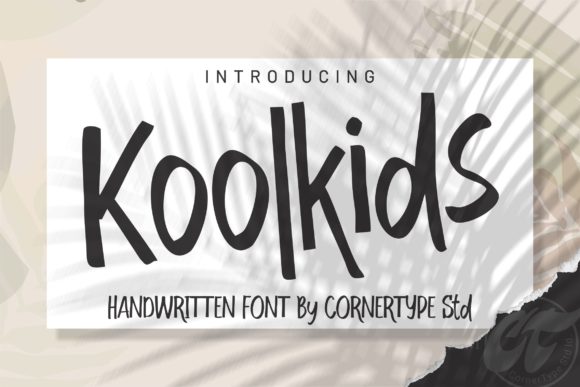
Introducing Koolkids Font - The Ultimate Display Font for Magazine Content
Journey into the world of captivating typography with Koolkids Font, a display font that exudes charm and playfulness. This meticulously crafted font is designed to ignite your creativity and transform your designs into visually stunning masterpieces. Whether you're a seasoned graphic artist or just starting, Koolkids Font is your gateway to creating designs that leave a lasting impression.
Unleash the Power of Playful Typography:
Koolkids Font is more than just a font; it's a gateway to a world of endless creative possibilities. With its playful and whimsical style, this font adds a touch of fun and lightheartedness to any project. Imagine your magazine content bursting with personality and charm, captivating readers from the very first glance.
A True Favorite:
Our team at cornertypestudio poured their heart and soul into crafting Koolkids Font, ensuring that every curve and line is perfect. The result is a font that effortlessly combines legibility and aesthetics, making it a true favorite among designers and typography enthusiasts. Experience the joy of using a font that feels like an extension of your creativity.
Add a Playful Touch to Your Designs:
Koolkids Font is the perfect choice for adding a touch of playfulness to your designs. Its unique and captivating style brings a sense of whimsy and delight to any project. Whether you're creating magazine content, designing posters, or crafting social media graphics, Koolkids Font will elevate your work and make it stand out from the crowd.